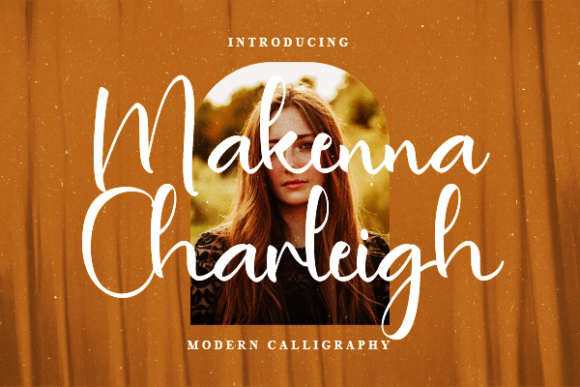
Introducing Makenna Charleigh Font, the enchanting script font that will capture your heart and transport you to a world of elegance and joy. Crafted by the talented hands of Circle Studio, this font exudes charm and sophistication, making it the perfect choice for any branding project that seeks to make a lasting impression.
With its playful curves and delicate strokes, Makenna Charleigh exudes an authentic handwritten feel, adding a touch of warmth and personality to your designs. Its versatility extends to a variety of creative endeavors, from logos and branding materials to t-shirt printing, invitations, and greeting cards.
Step into a realm of visual delight as you explore the endless possibilities of Makenna Charleigh. Its charming characters dance across the page, evoking a sense of whimsy and playfulness that is sure to captivate your audience. This font is ideal for creating designs that resonate with a younger demographic, making it a perfect fit for children's products, websites, and educational materials.
Unleash your creativity and let Makenna Charleigh elevate your designs to new heights. Its adaptability shines through in a myriad of contexts, from playful illustrations to elegant wedding invitations. Experience the magic of this font as it transforms your words into captivating works of art.